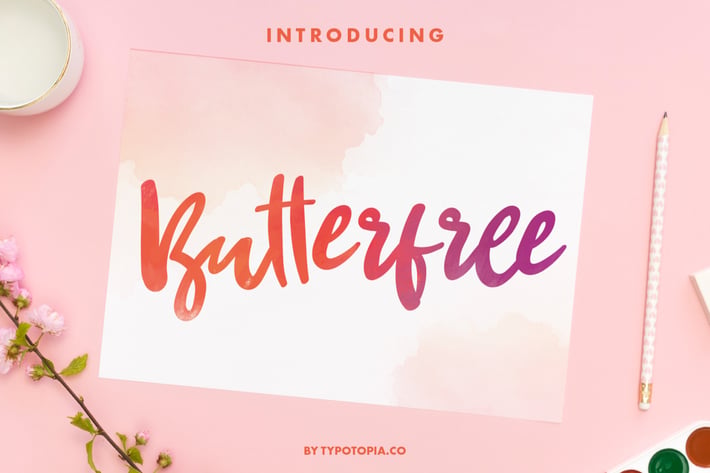
Butterfree Girly Script Font
Introducing Butterfree Girly Script Font. This perfect for the purposes of designing templates, brochures, videos, advertising branding, logos and more.